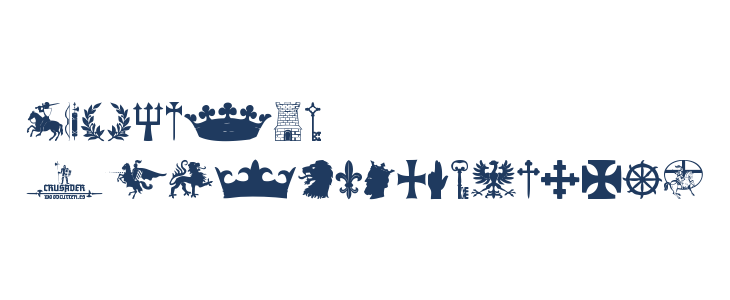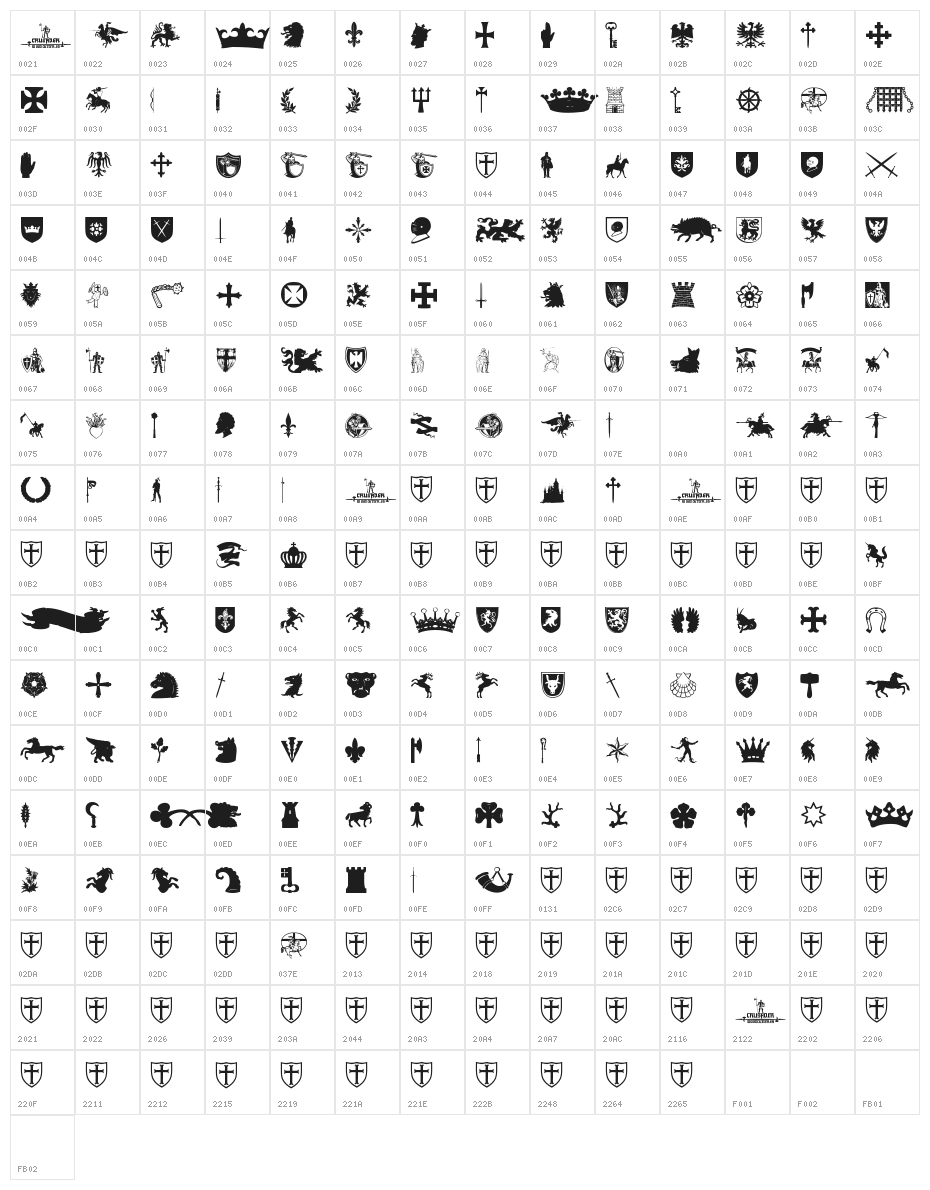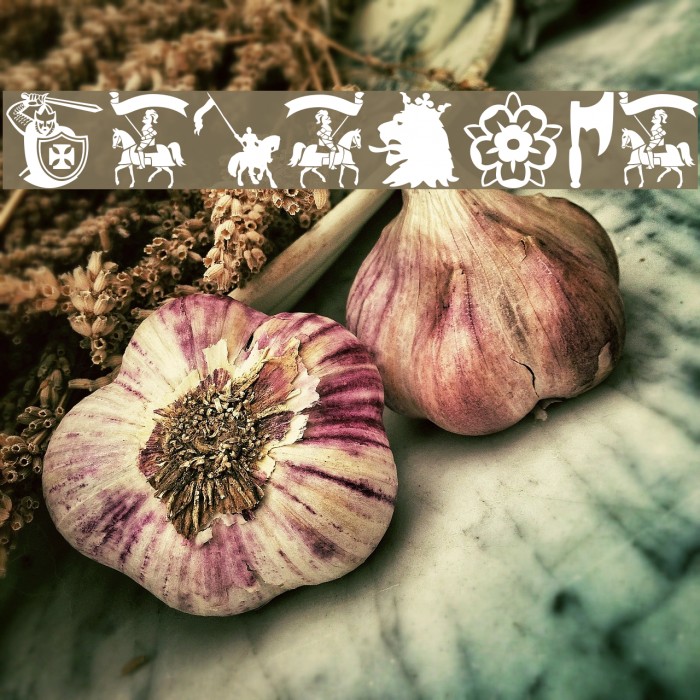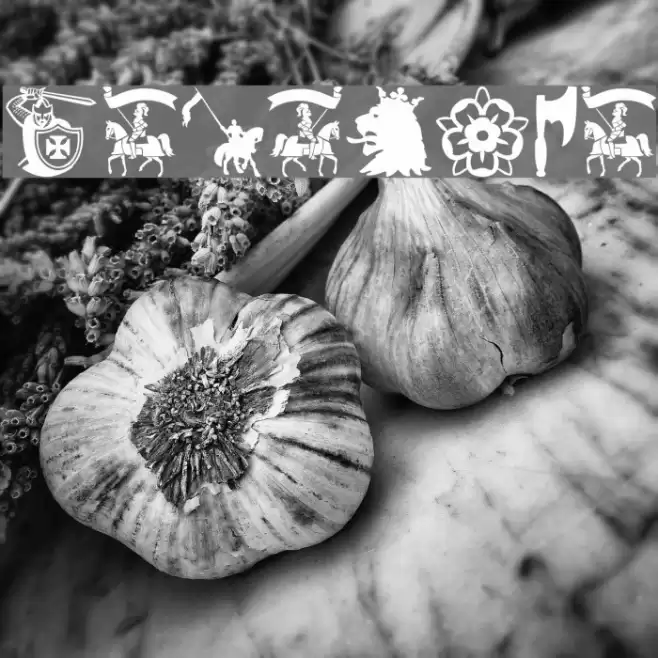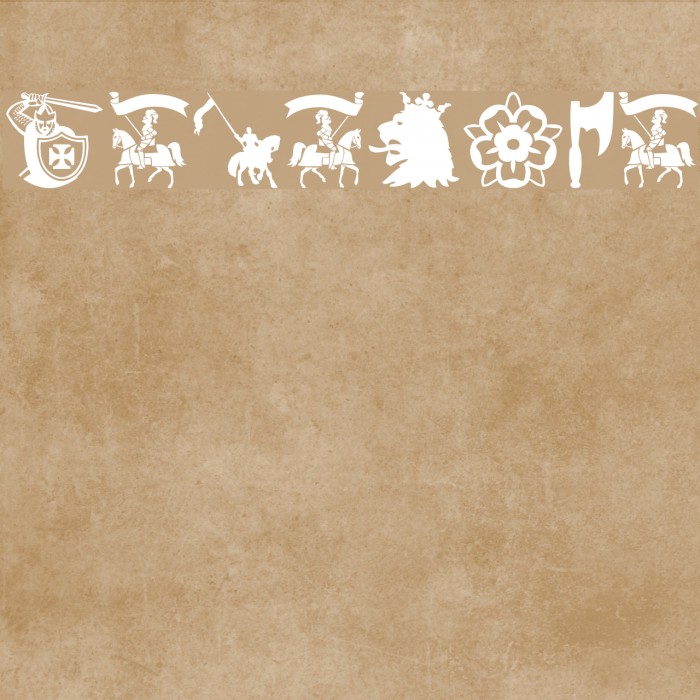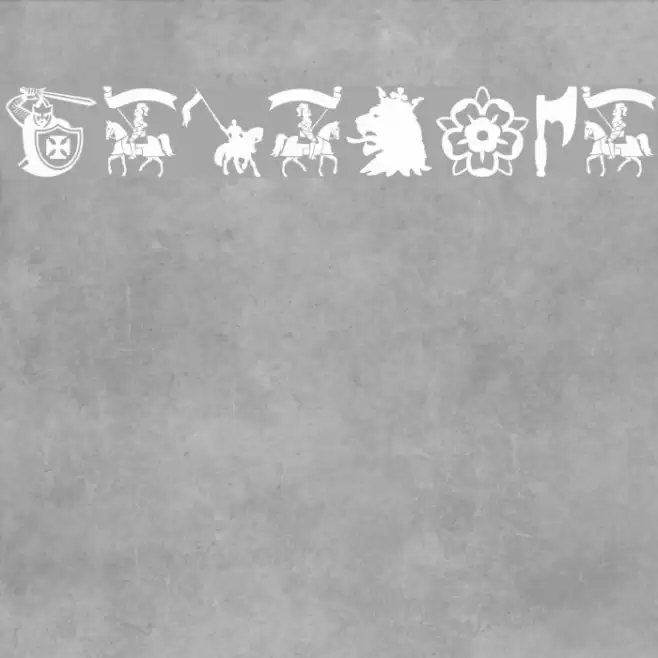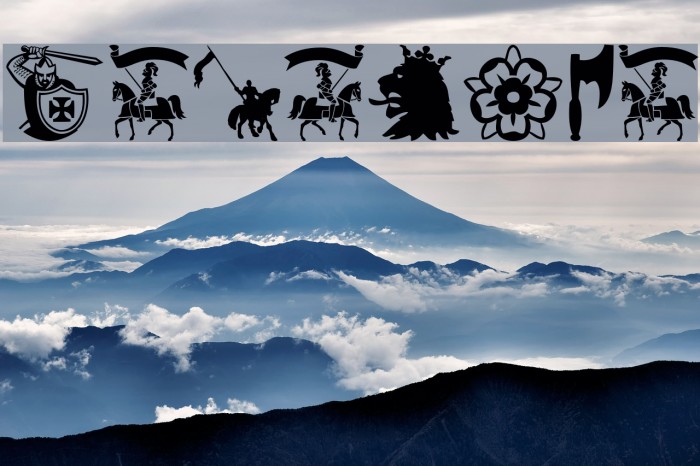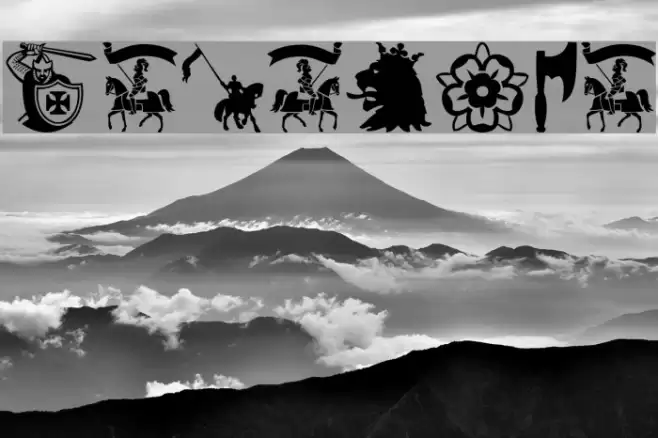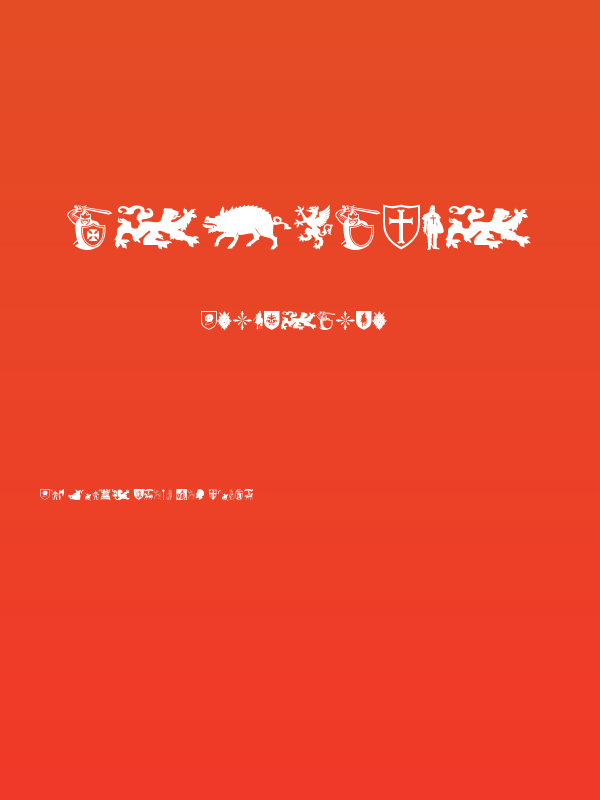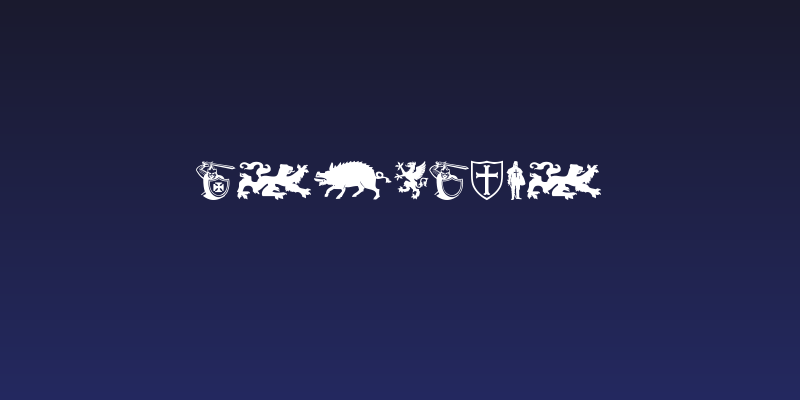
Crusader Font
Crusader Description
This is not a traditional font but rather a collection of medieval-themed symbols and icons. The imagery includes knights, shields, swords, and various heraldic elements, evoking a sense of historical and chivalric themes. The designs are intricate and detailed, suitable for decorative purposes. Each symbol is distinct, featuring bold lines and strong contrasts, reminiscent of medieval manuscripts and heraldry. The collection is ideal for projects that require a historical or fantasy aesthetic, such as themed event invitations, game designs, or educational materials about the medieval period.
| Use Case | Logos, Decorative elements |
| Proposed Projects | Ideal for themed event invitations, game designs, or educational materials about the medieval period. |